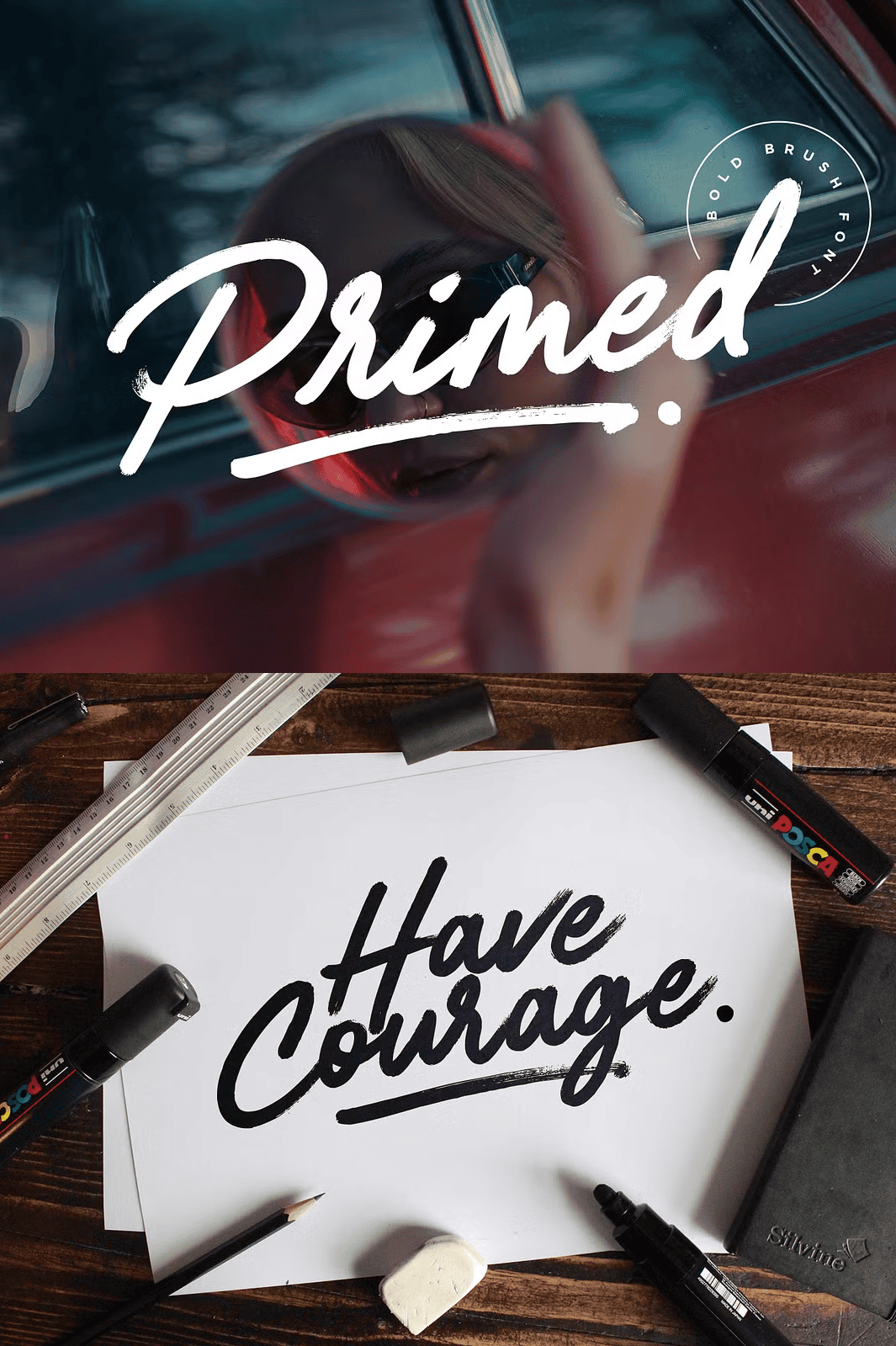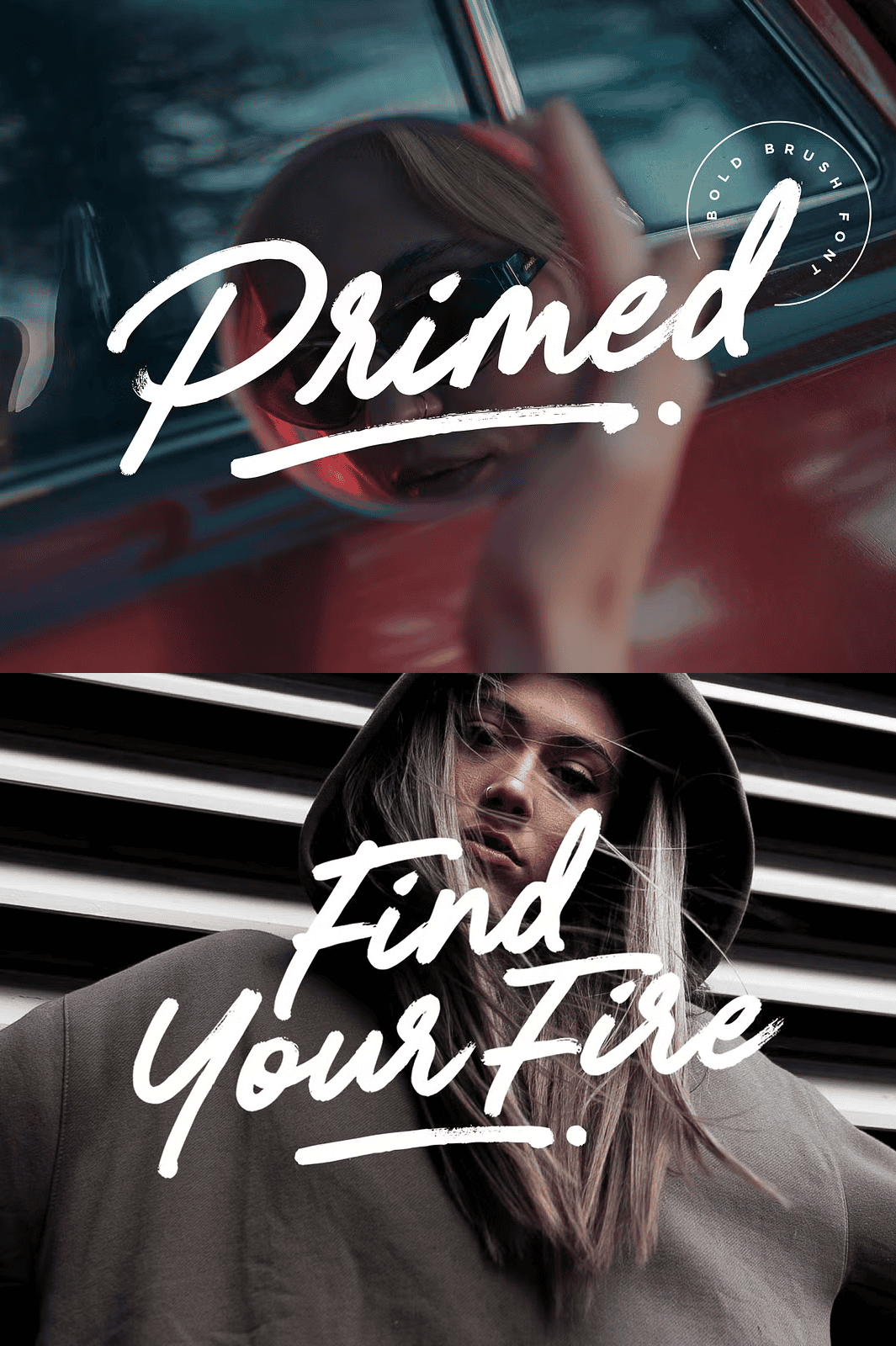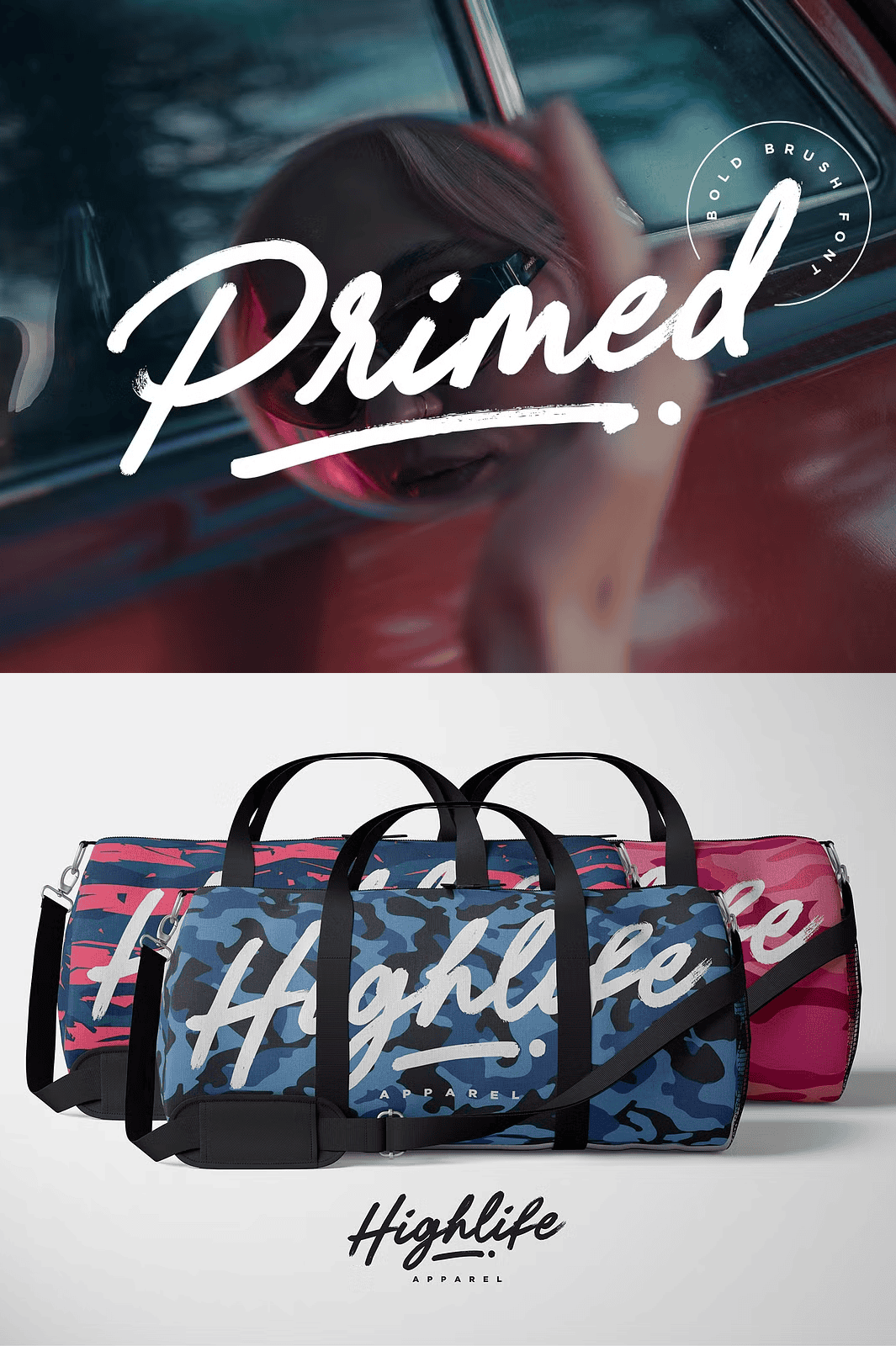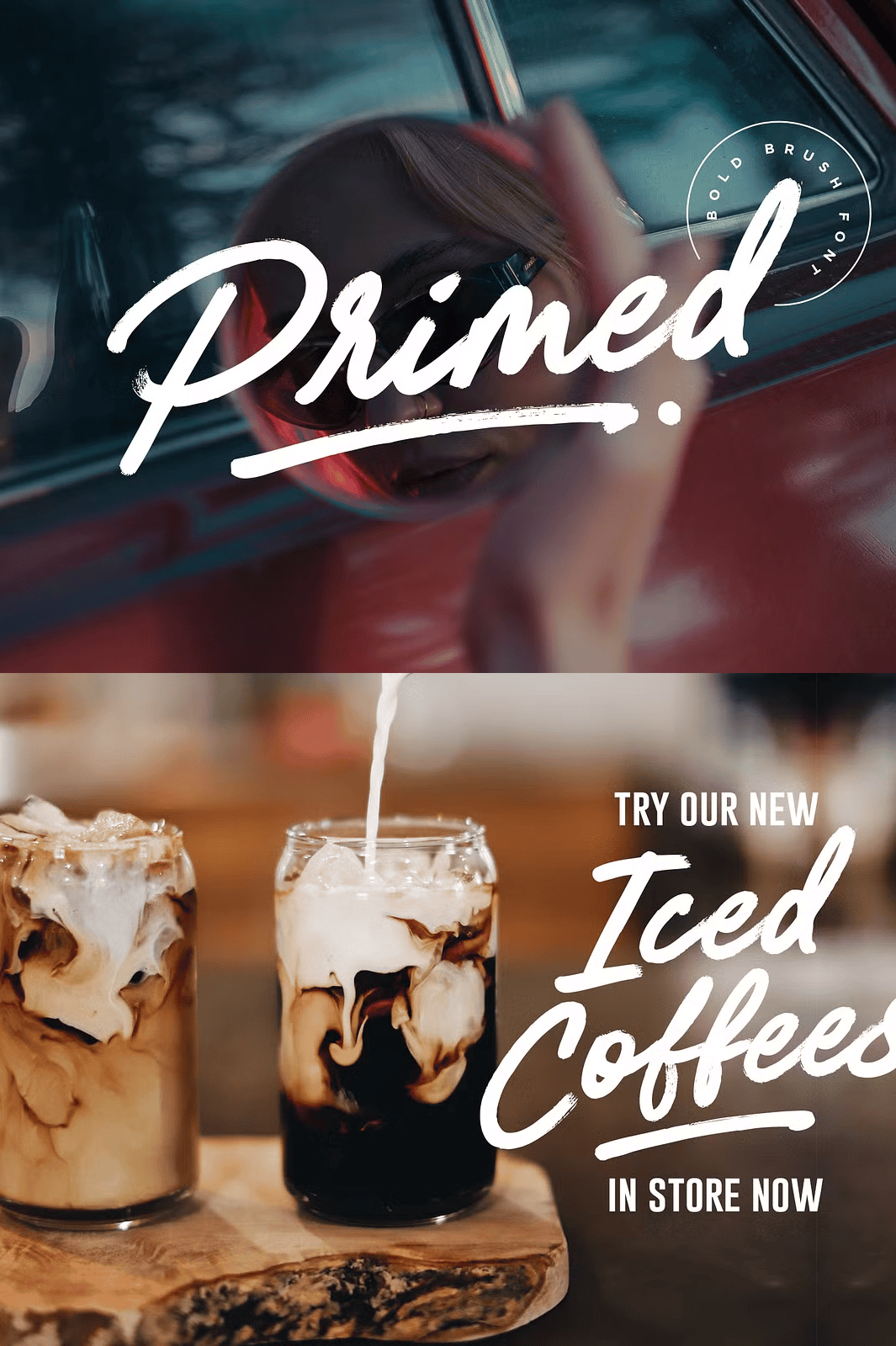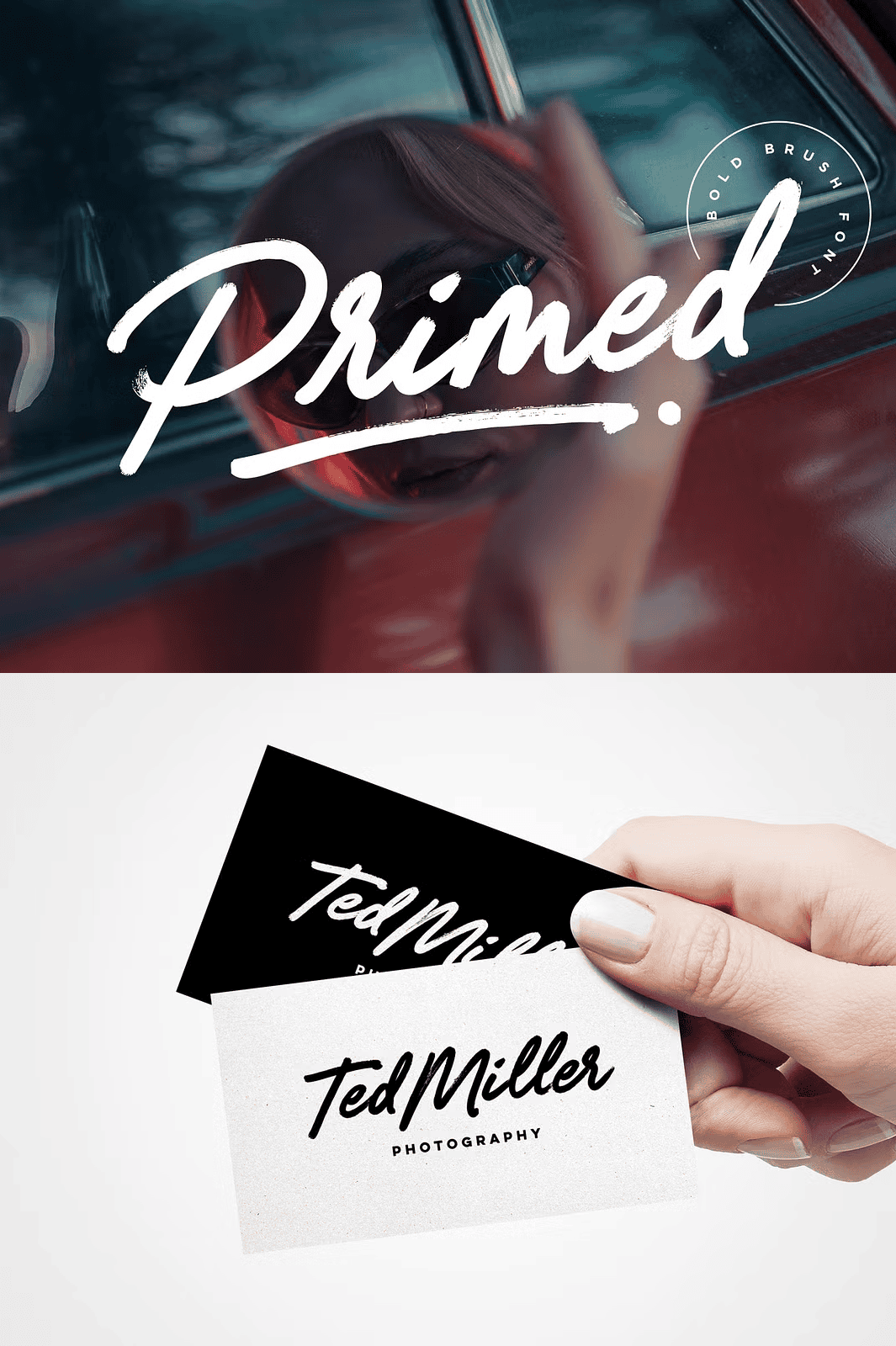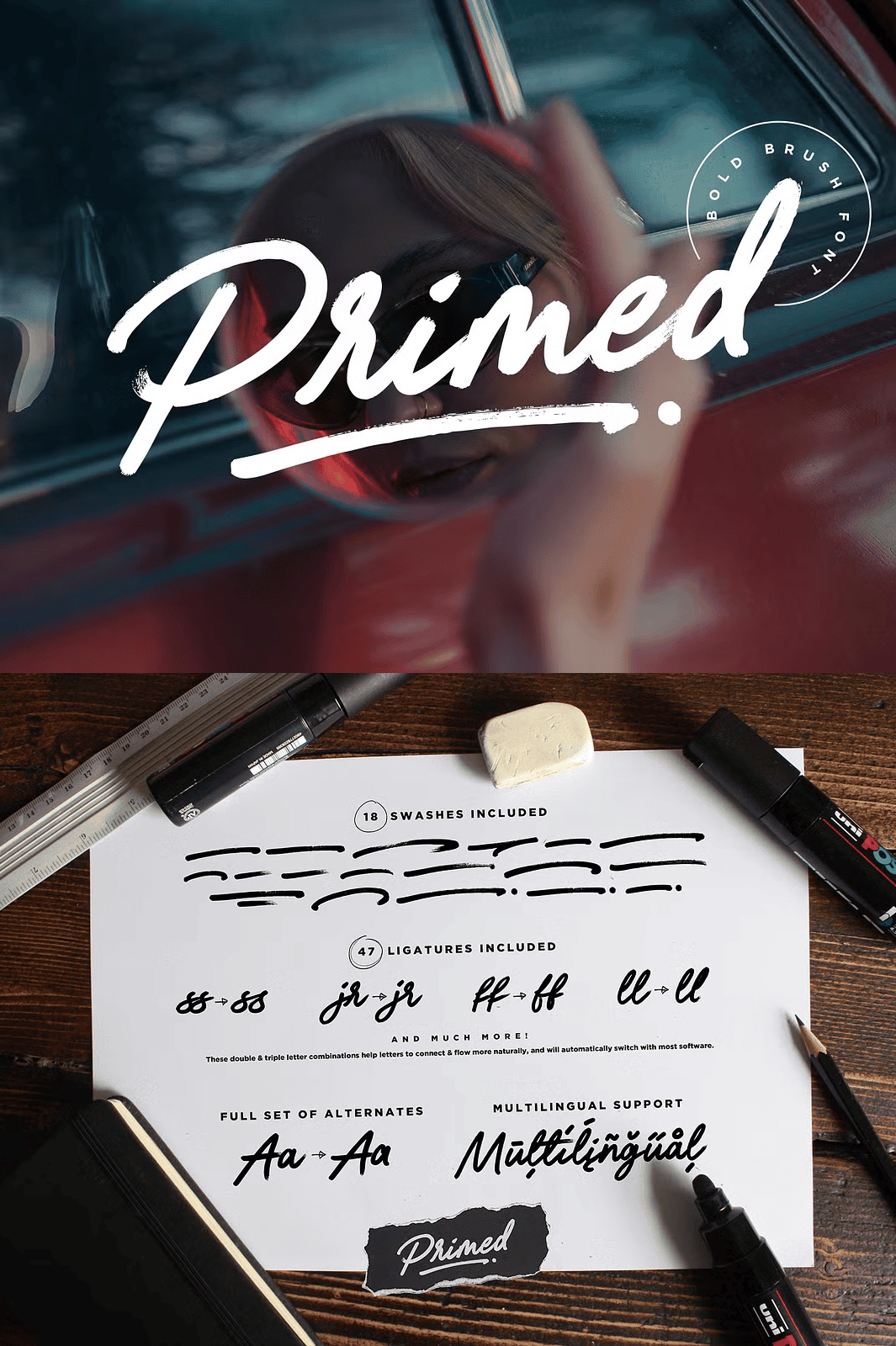
Grab Attention with Raw, Real Brush Texture and Unmatched Impact
Step into the spotlight with **PRIMED**—a stunningly bold, chunky brush font forged from real marker pen strokes. Every character pulses with authenticity, delivering the gritty, dynamic feel of hand-lettering done right. This isn’t just a font—it’s a powerful design force, engineered to cut through the noise and make a permanent impression.
Perfectly suited for **high-visibility display text**, **brand logos**, **handwritten quotes**, and **product packaging**, PRIMED transforms ordinary text into a visual experience. Whether you’re designing for streetwear, food branding, music releases, or editorial design, PRIMED brings energy, soul, and immediate recognition.
Unlock the Full Creative Potential with Premium Features
PRIMED isn’t limited to basic letters—it’s a complete design toolkit packed with professional-grade tools:
– **18 Authentic Swash Variants:** Elevate your layouts with dramatic, hand-crafted swashes that add flair, movement, and a custom finish—ideal for underlining names, titles, or key phrases.
– **47 Smooth Ligatures:** Achieve natural, fluid connections between letters with double and triple ligature sets. These automatically activate in compatible software, ensuring seamless, organic flow.
– **Full Upper & Lowercase Alternates:** Expand your creative palette with a complete set of alternate characters—add uniqueness and rhythm to every word.
Design with Confidence Across Every Project
Leverage PRIMED’s strength in high-impact applications:
– **Logos & Brand Identity:** Build a bold, unforgettable brand presence that speaks with authority and personality.
– **Product Packaging & Labels:** Make your packaging impossible to ignore—ideal for food, drink, cosmetics, and gift products.
– **Posters & Event Promotions:** Command attention at concerts, markets, or art shows with dynamic, expressive typography.
– **Digital Marketing & Social Media:** Create scroll-stopping Instagram posts, YouTube thumbnails, and Facebook ads with powerful visual storytelling.
– **Editorial & Magazine Layouts:** Use PRIMED for pull quotes, headlines, or chapter titles that demand reader engagement.
Join the Creative Movement with a Font Built for Impact
PRIMED isn’t just a tool—it’s a mindset. It’s for designers who refuse to blend in and demand originality. Whether you’re launching a new brand, promoting a product, or crafting a personal project, PRIMED gives you the edge.